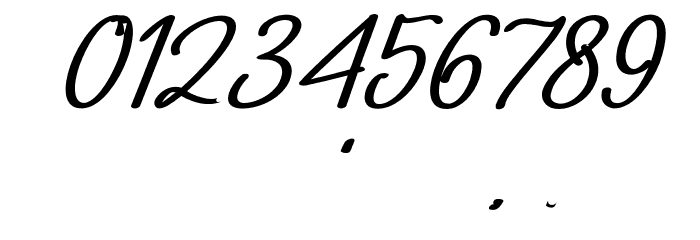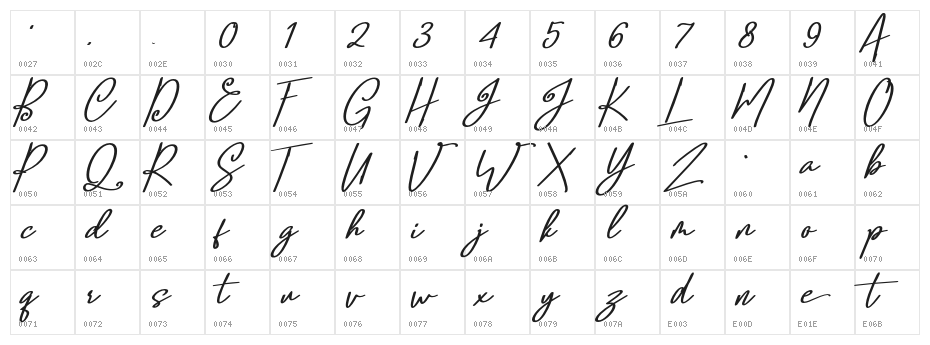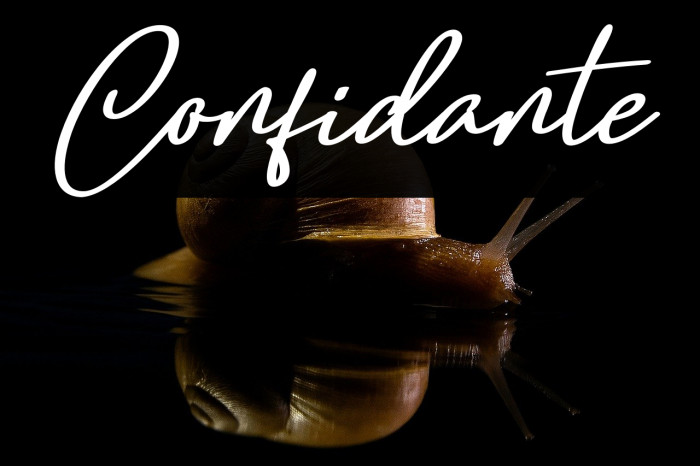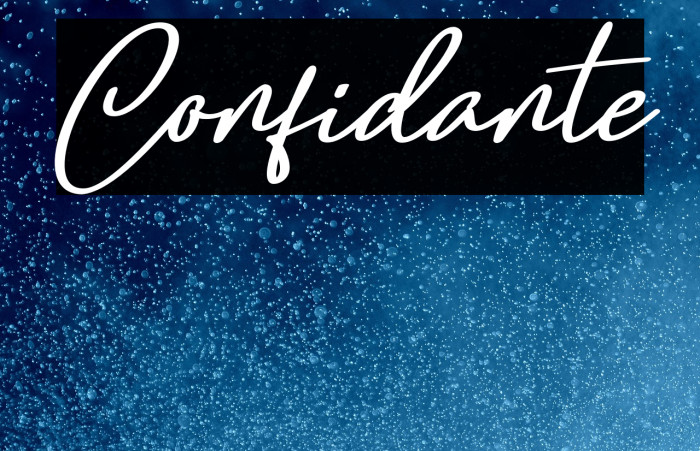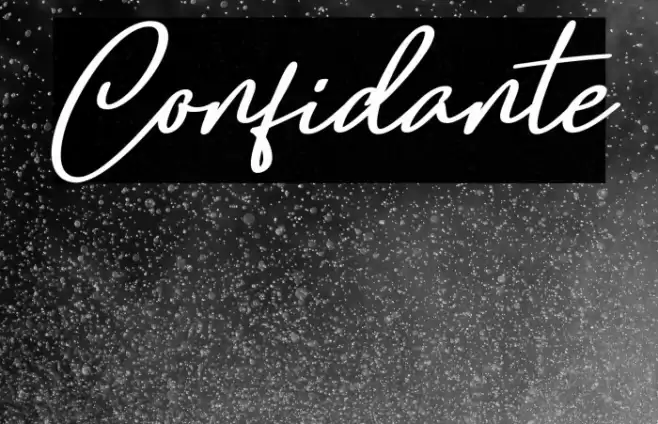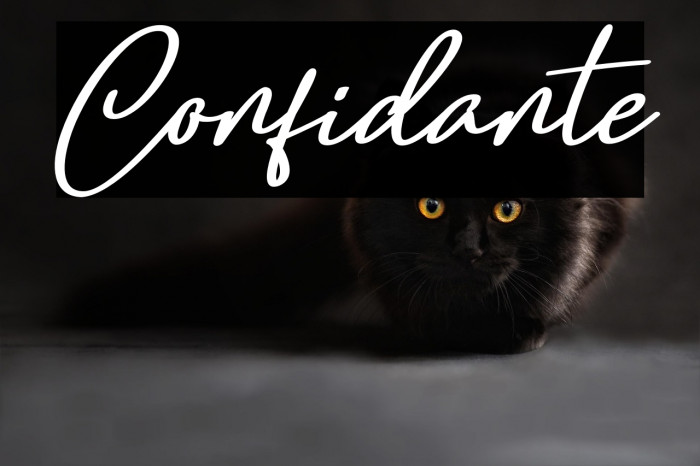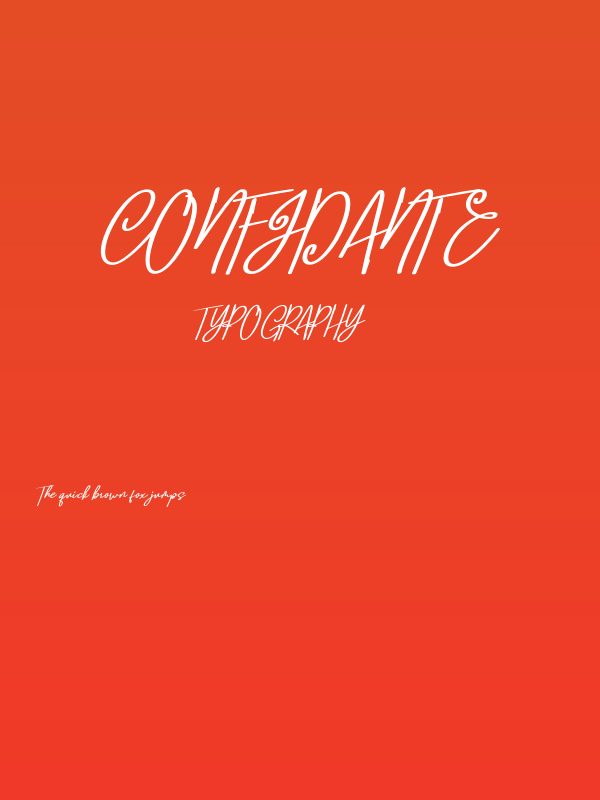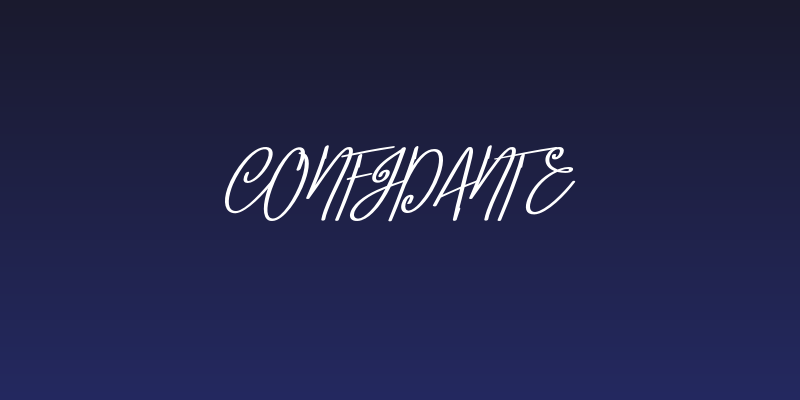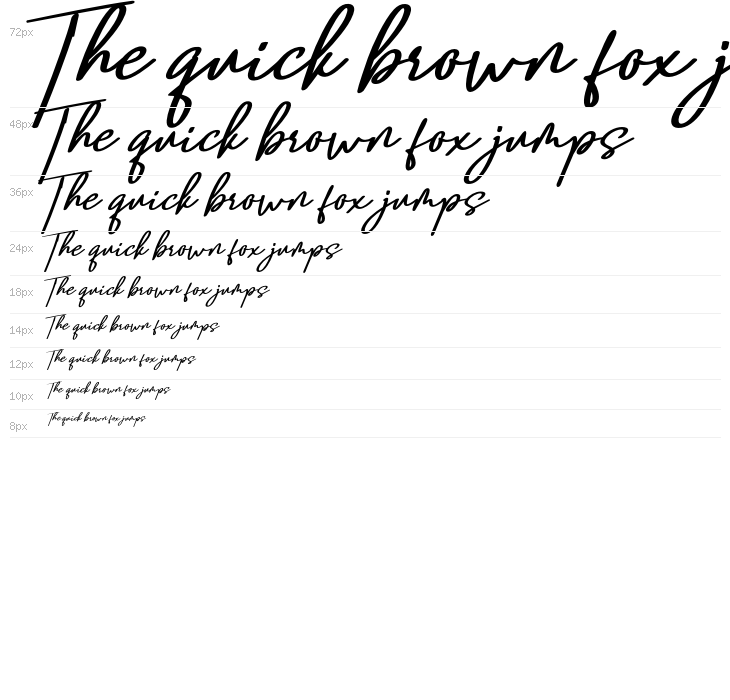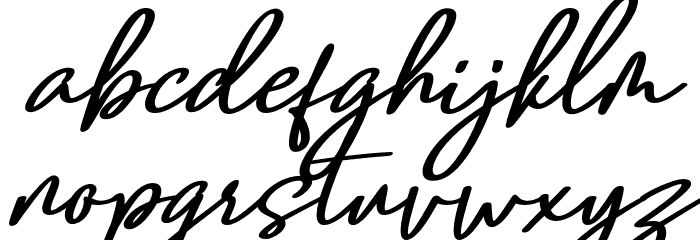
Confidante Font
Confidante Description
This font features a dynamic and flowing script style, characterized by its elegant and fluid strokes. The uppercase letters exhibit a graceful, cursive form with distinctive loops and swirls, giving it a sophisticated yet approachable appearance. The lowercase letters maintain a consistent flow, enhancing readability while preserving the font's artistic flair. The numerals are designed with a similar fluidity, ensuring cohesion across all characters. This font's overall aesthetic is both modern and timeless, making it suitable for a variety of creative applications.